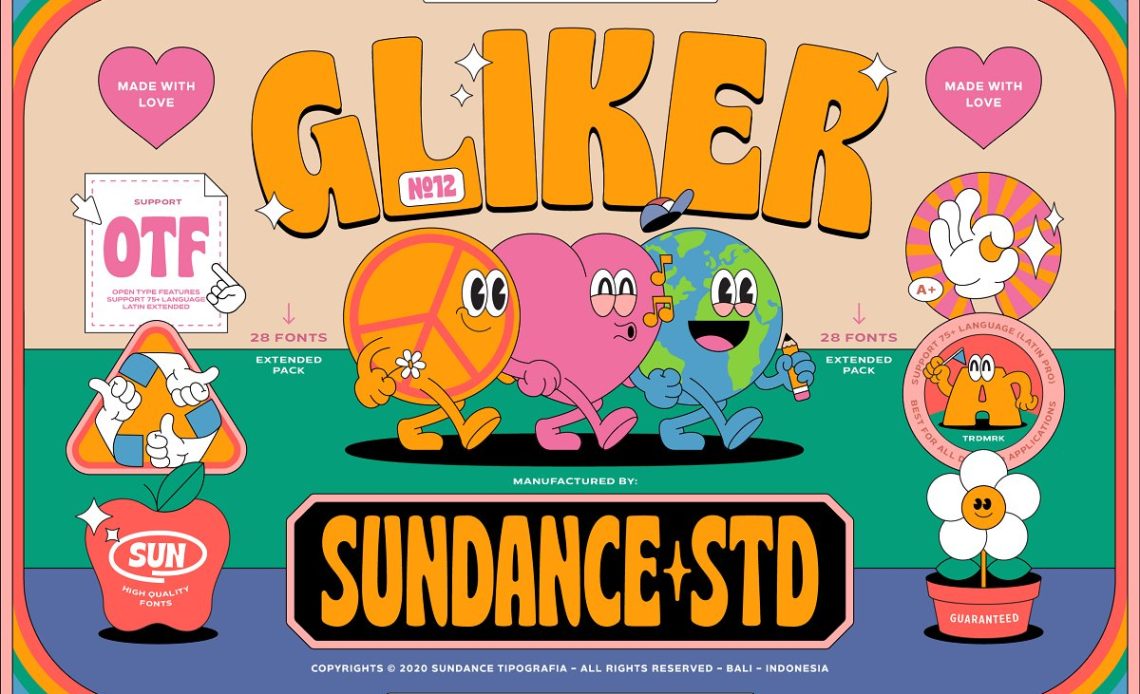
Are you looking for a font family that will add a vintage feel to your designs? Look no further than the 50% Off Gliker Font Family, created by Studio Sun*. This font family, inspired by Hobo Typefaces, was designed in early 2019 and published in June 2020. Its dynamic and vintage feel will elevate your designs to the next level.
Gliker Font Family is available in four weights: Regular, Semi Bold, Bold, and Black, and seven widths: Extra Condensed, Semi Condensed, Normal, Semi Expanded, and Extra Expanded. With a total of 28 styles, you'll have the flexibility to use Gliker in a variety of contexts. Plus, it supports over 75 Latin (Extended) languages.
Whether you're designing for personal or professional use, Gliker Font Family is a must-have. With its unique vintage feel and wide range of styles, you'll be able to create stunning designs that capture the attention of your audience. Don't miss out on this incredible opportunity to enhance your designs with Gliker Font Family.